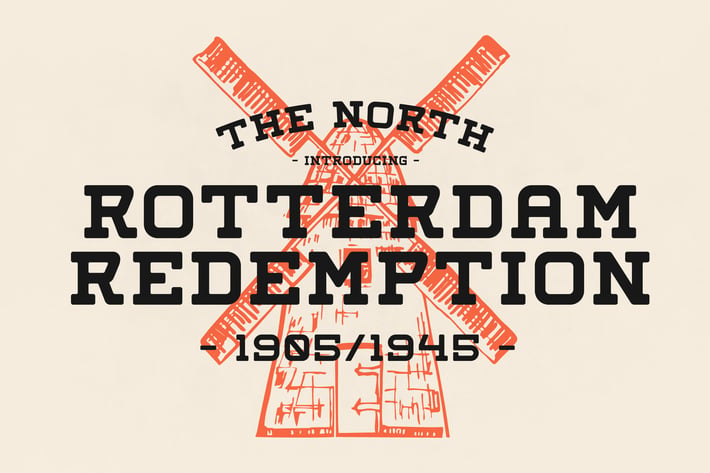
Rotterdam Redemption Display Font
Rotterdam Redemption is a bold vintage display font inspired by classic industrial lettering and old-world craftsmanship. With strong geometric forms and rugged character, it brings an authentic retro feel perfect for heritage branding, badge designs, apparel graphics, and headline work that needs a tough, standout presence.
Bold vintage display style with industrial-inspired shapes
Clean geometric structure with strong readability
Retro character ideal for badges, signage, and posters
Perfect for both modern-retro branding and themed visuals
Retro branding & vintage logos
Merchandise & apparel prints
Posters, signage, and label design
Brewery, café, and craft-based brand identities
Editorial titles & bold advertising layouts
Bold retro energy inspired by industrial heritage and classic European craftsmanship.*